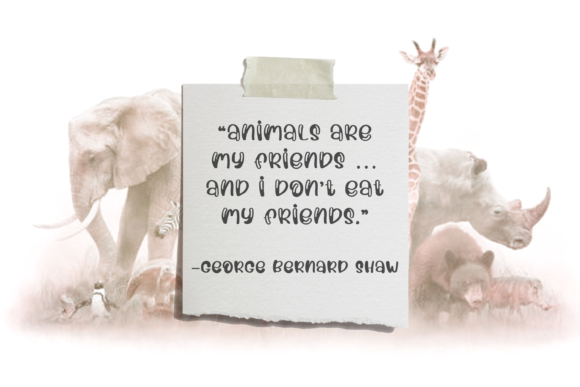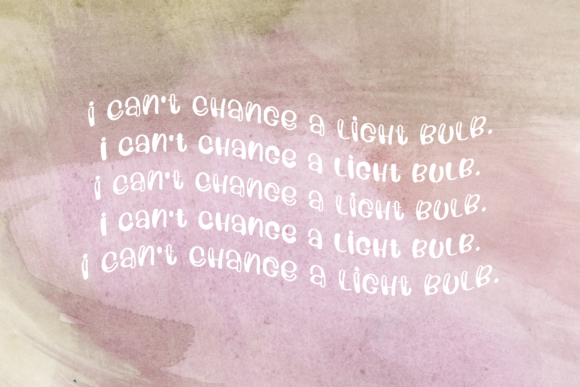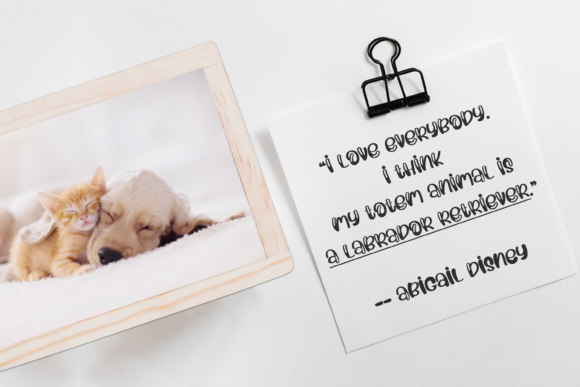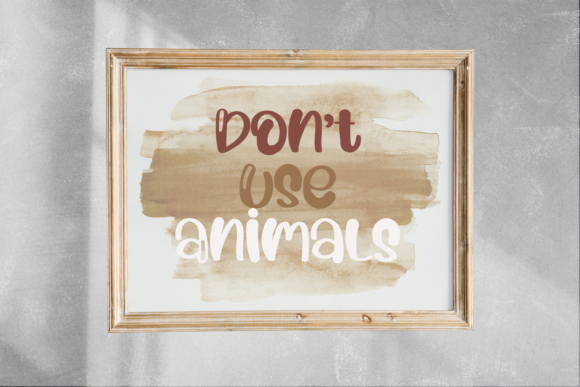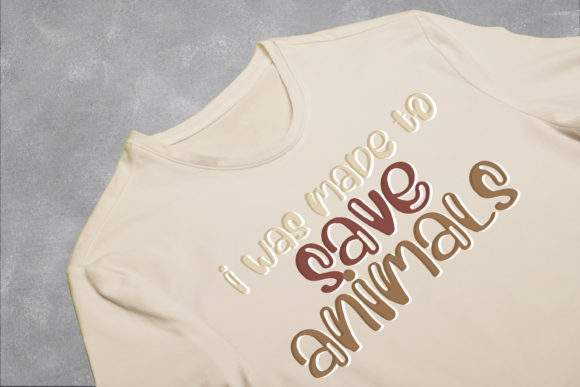
Introduction to Animal Parade Font
Animal Parade is a glossy, cartoon like & unique display font.
Get inspired by its incredibly sleek feel, and use it to turn any design project into a standout .
Key Features of Animal Parade Font
Why Choose Animal Parade Font?